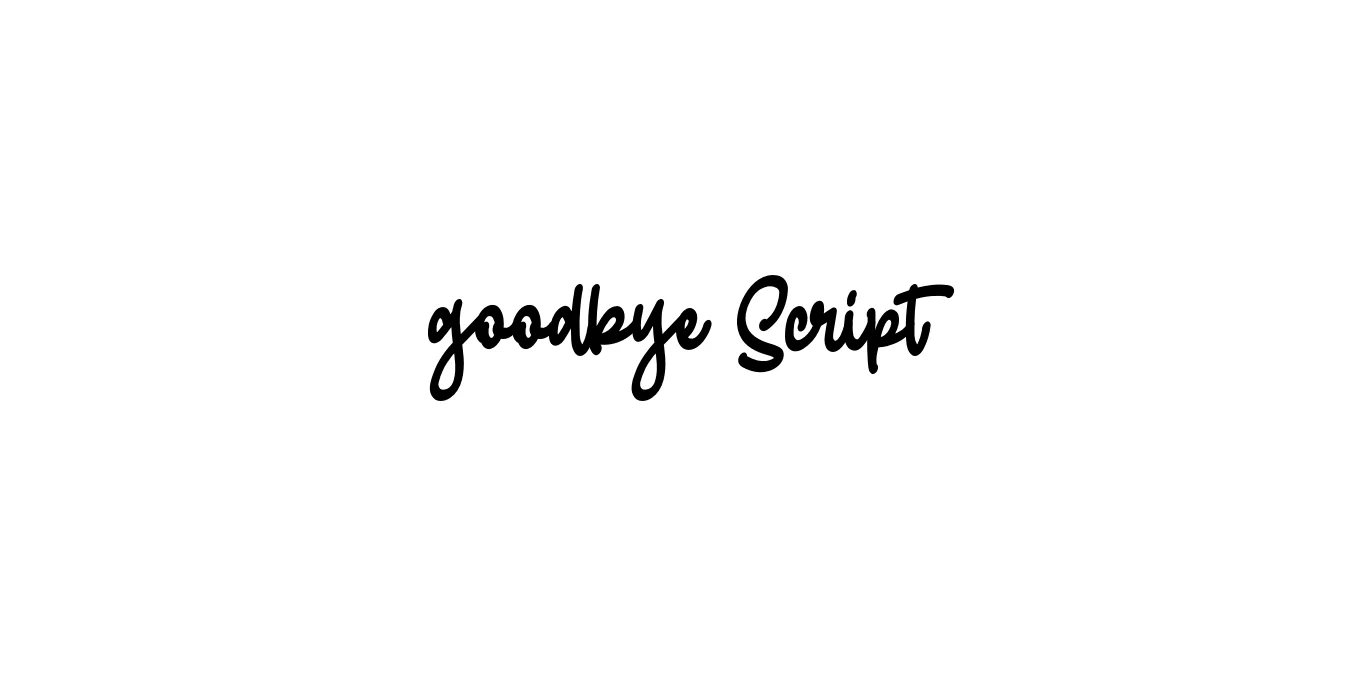
goodbye Script
Designed by Billy Argel
Goodbye Script is a charming and fluid calligraphy font created by the renowned designer Billy Argel. It features elegant, sweeping strokes and a natural handwritten feel that makes it perfect for adding a personal touch to any design project. The typeface captures the essence of modern brush lettering with its balanced weight and expressive swashes, making it a standout choice for high-end creative work.
Developed with a focus on versatility and aesthetic appeal, this font has become a favorite among graphic designers for branding and editorial layouts. Its sophisticated yet approachable style ensures that it remains legible while still conveying a sense of artistic flair. Whether used for digital media or high-quality print, Goodbye Script provides a premium typographic solution for those seeking a romantic and authentic look.
goodbye Script Best Uses
Perfect for invitations and place cards that require a romantic touch.
Ideal for lifestyle quotes and influencer aesthetic content.
Provides a unique and personal feel for boutique brand identities.
Excellent for heartfelt messages and special occasion cards.